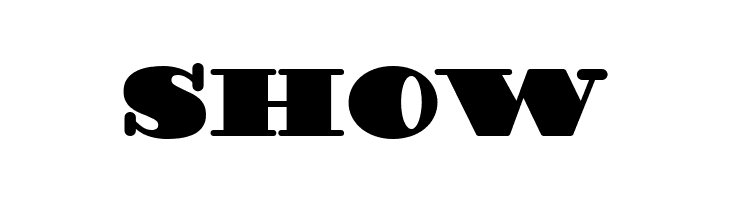
Kremlin Minister Black Font
- Font: Kremlin Minister Black
- Weight: Extra Bold
A bold, vintage-inspired serif font with thick strokes and a strong presence.